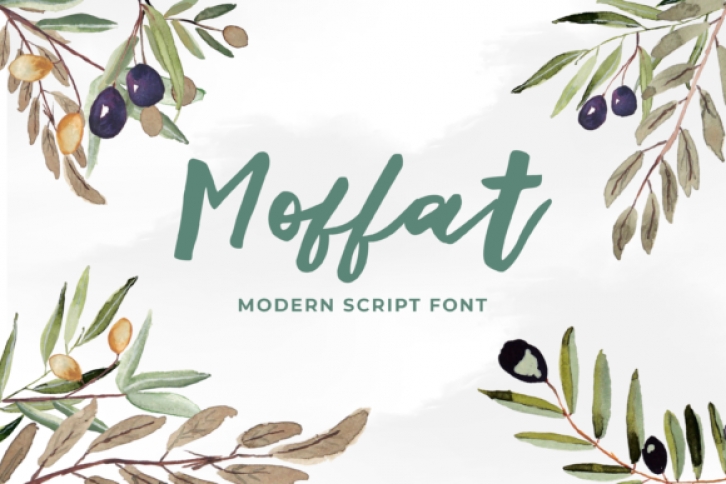
Moffat is a modern and cursive paint brushed script font. It looks stunning on wedding invitations, thank you cards, quotes, greeting cards, logos, business cards and every other design which needs a handwritten touch.